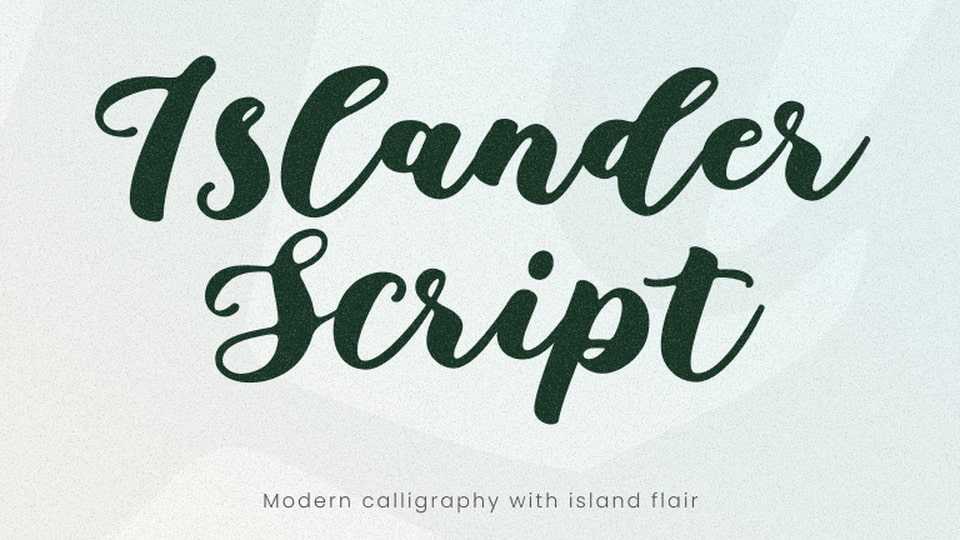
Download Islander Script font, a bold handwritten typeface crafted by Greetings Island. This script features smooth brush strokes, expressive curves, and a laid-back elegance that feels both modern and timeless.